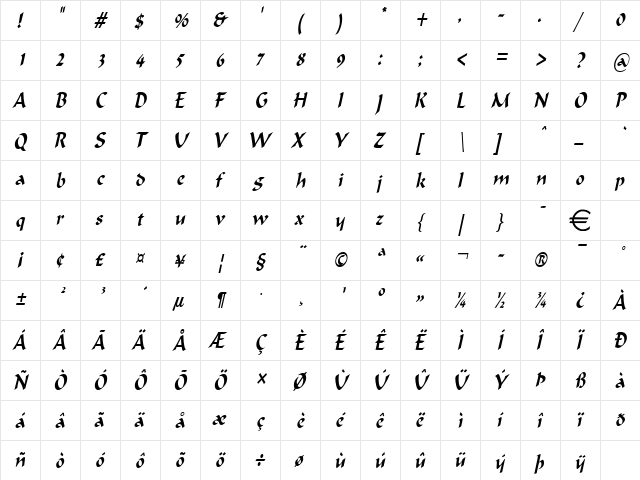
FlatBrushThin Italic Font Preview
FlatBrushThin Italic
FlatBrushThin Italic Font Details
Design Context for FlatBrushThin Typeface
FlatBrushThin brings a calligraphic fluidity to the page — its connecting strokes and expressive curves give it an unmistakably human quality. Its slender proportions lend an understated elegance to any composition.